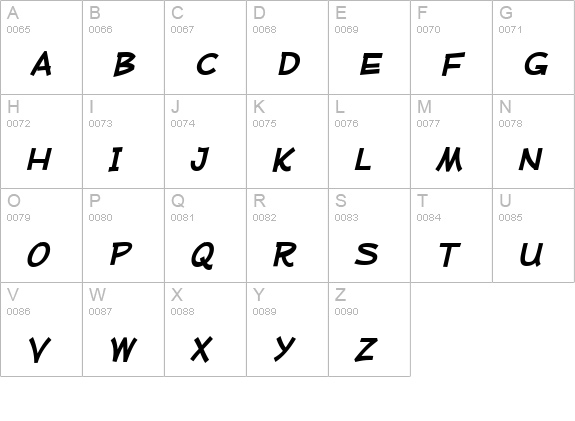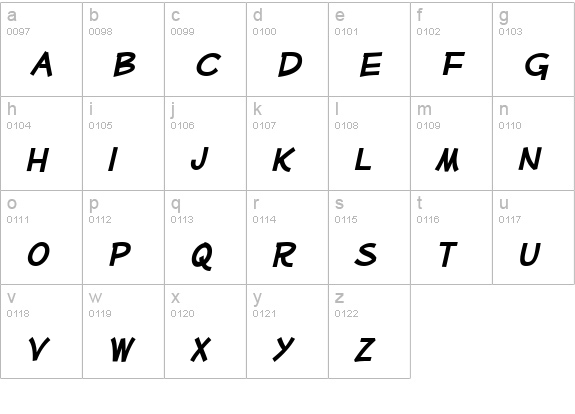
Mufferaw Bold Italic Font Details
Mufferaw Bold Italic is a strong, high-contrast, italic variant in the Mufferaw typeface family \xE2\x80\x94 well suited to headlines, attention-grabbing titles, and strong calls-to-action.
Mufferaw Bold Italic font is a striking and modern typeface that exudes confidence and style. Its bold and italic characteristics make it perfect for eye-catching headlines and attention-grabbing designs. The sleek curves and sharp angles of this font give it a unique and dynamic appearance, making it a versatile choice for a wide range of projects. What sets Mufferaw Bold Italic font apart is that it is available for free download at FontsMarket.com. This means that you can easily access this premium-quality font without any cost, making it a valuable addition to your font library. Whether you're creating posters, flyers, logos, or any other design project, Mufferaw Bold Italic font is sure to make a bold statement and elevate your work to the next level. Download it now and unleash your creativity with this exceptional font.